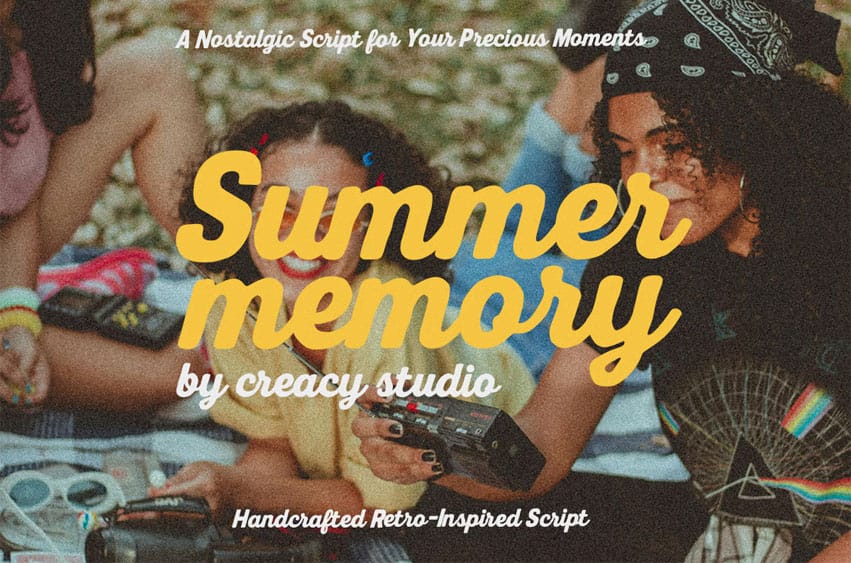
Summer Memory Font brings the golden vibes of the past into your modern designs with Summer Memory, a nostalgic retro-inspired script font by Creacy Studio. Chunky, playful, and stylish – this script is perfect for capturing the carefree spirit of summer days, retro parties, and bold lifestyle branding.
With smooth handwritten strokes and a vintage charm, Summer Memory is versatile for a wide range of projects – from social media graphics, posters, and packaging to logos, invitations, and event promotions.
- Uppercase Sans & Lowercase Script
- Handcrafted retro-inspired style
- Perfect for nostalgic, bold, and stylish design projects
Ideal For:
- Retro & vintage branding
- Music & lifestyle posters
- Social media content
- Event flyers & party promotions
- Packaging design
Bring your words to life with Summer Memory – where every letter is a piece of retro nostalgia.